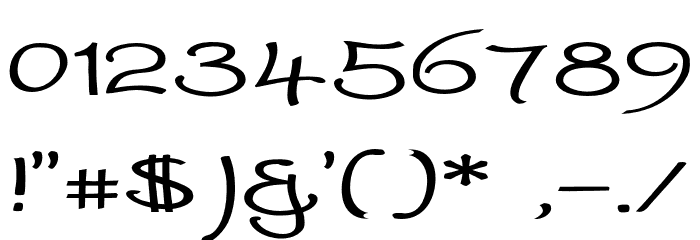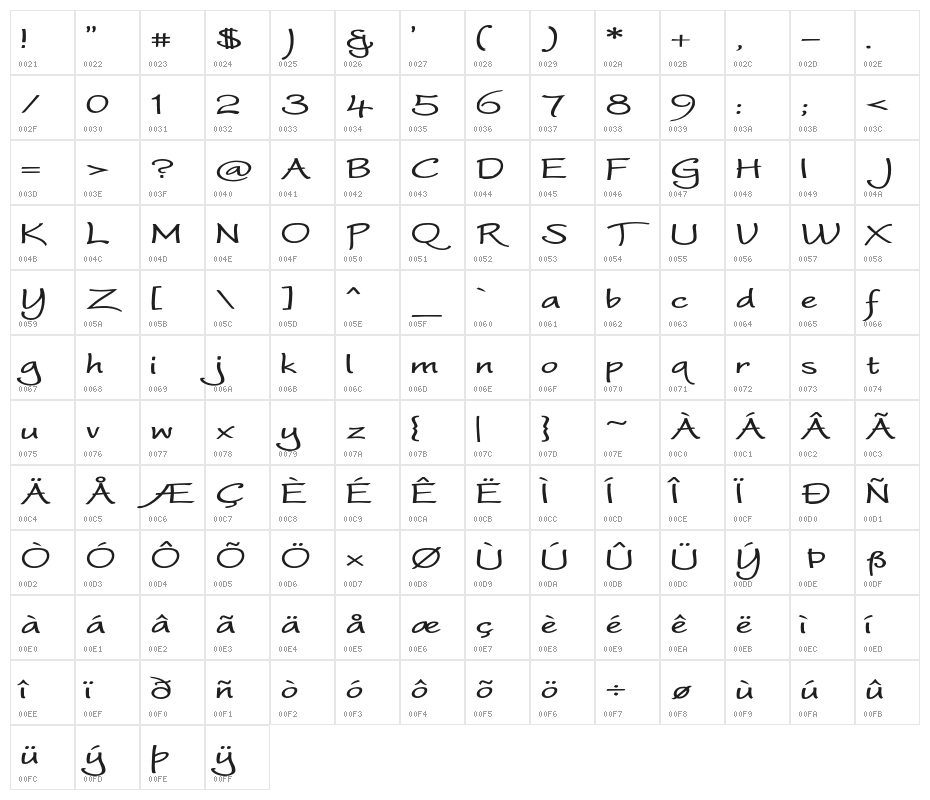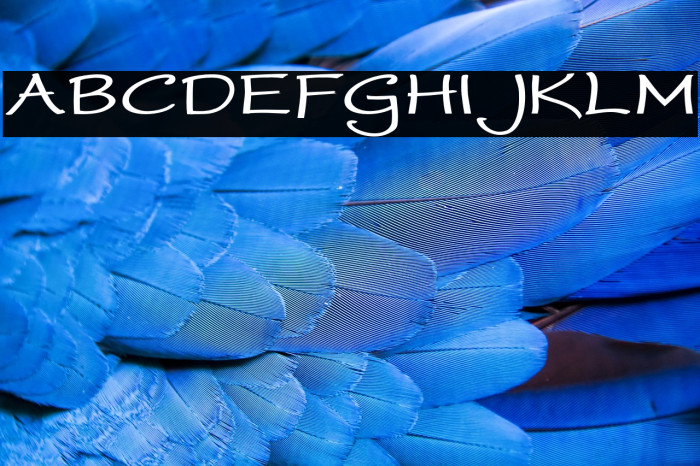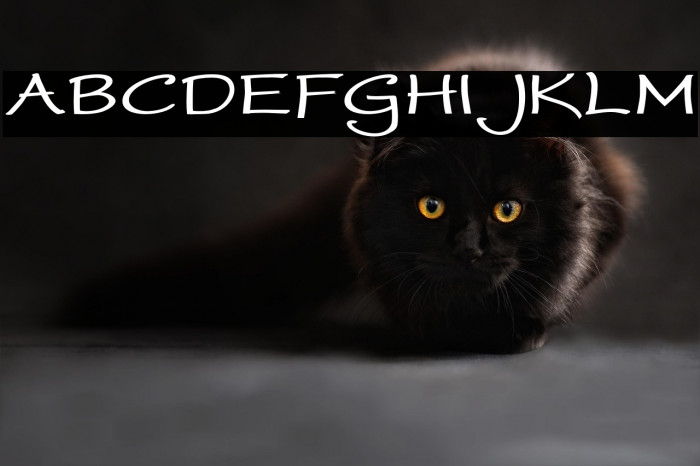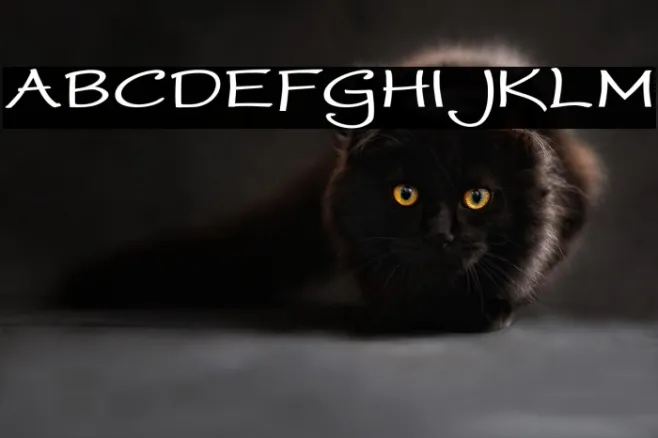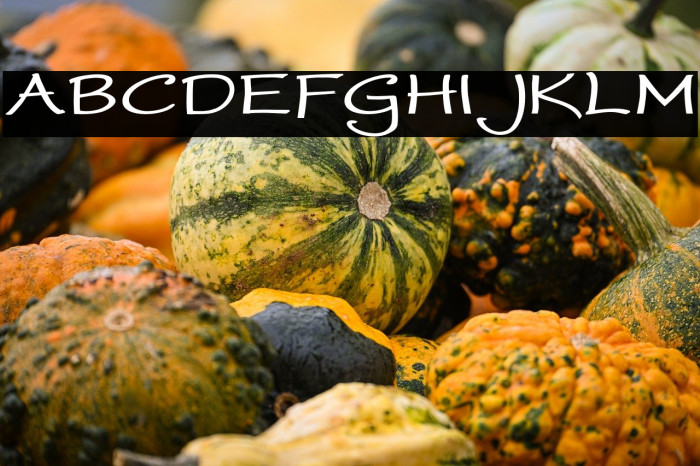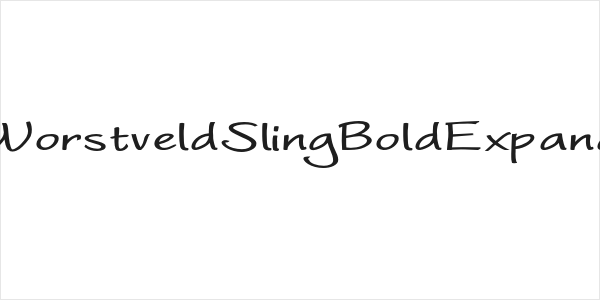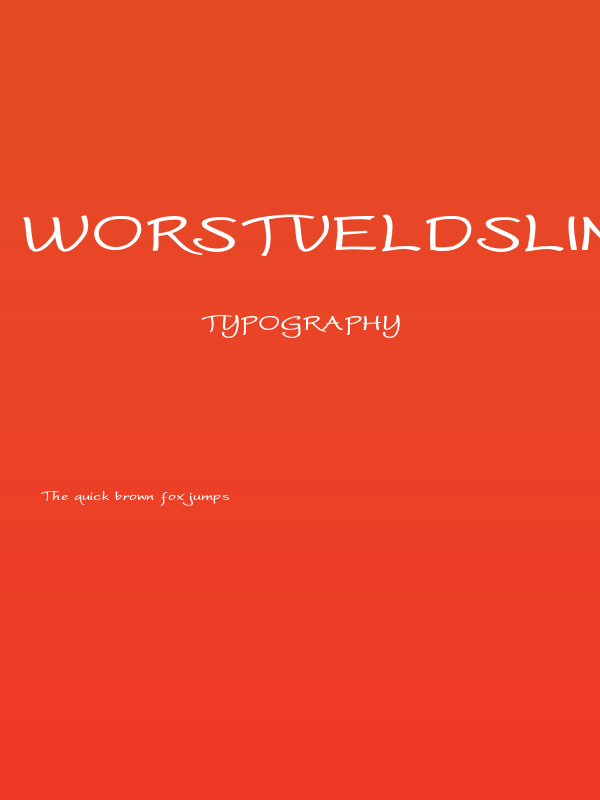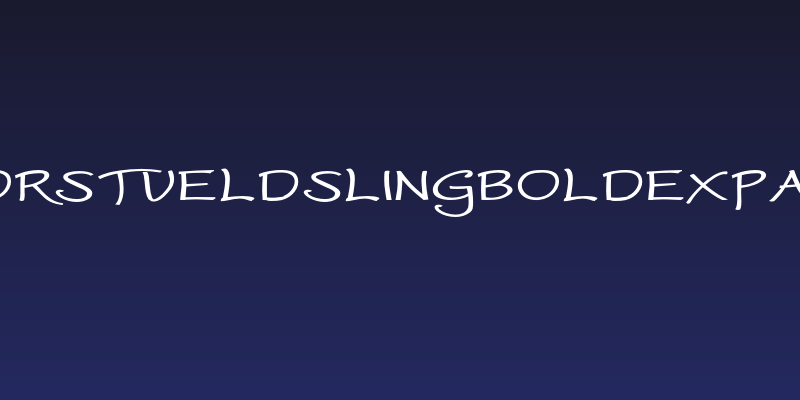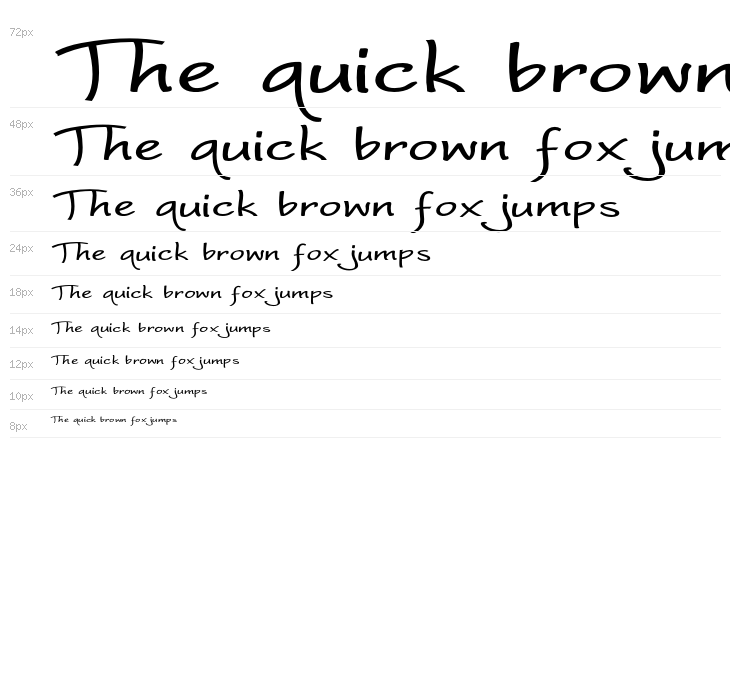
WorstveldSlingBoldExpand Font
WorstveldSlingBoldExpand Description
This font features a playful and dynamic script style with a handwritten appearance. The letters are slightly slanted, giving a sense of motion and fluidity. The strokes are varied, with some characters having thicker downstrokes and thinner upstrokes, adding to the handwritten feel. The uppercase letters are bold and prominent, while the lowercase letters maintain a consistent flow. The numbers and special characters are designed to match the overall style, ensuring cohesion across all elements. This font exudes a casual and friendly vibe, making it suitable for creative and informal projects.